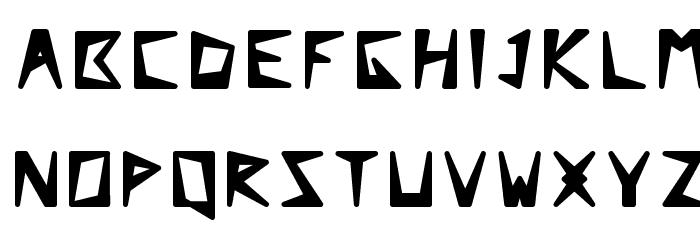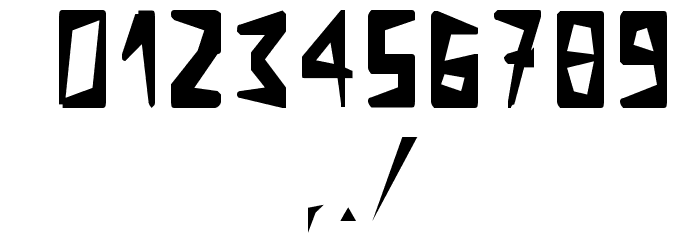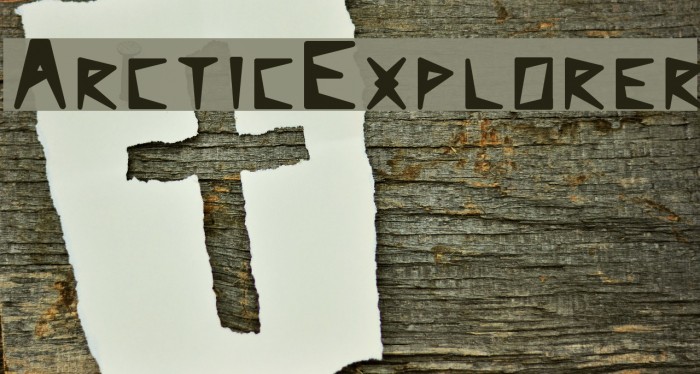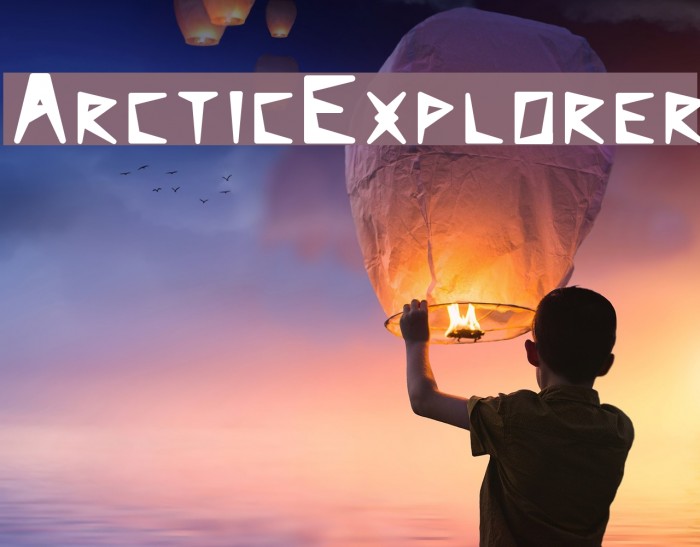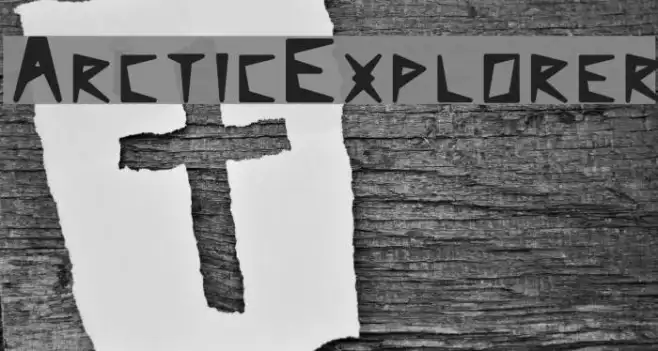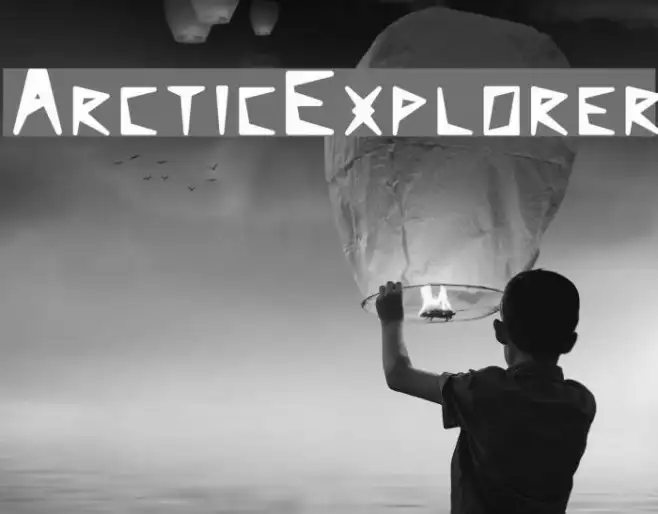
ArcticExplorer Font
This font features a bold and angular design, reminiscent of icy landscapes and rugged terrains. The characters are sharply defined with a geometric style, creating a sense of movement and energy. The uppercase and lowercase letters maintain a consistent angular theme, while the numerals and special characters follow suit with a similarly bold and dynamic appearance. The overall aesthetic is both modern and adventurous, making it ideal for projects that require a strong visual impact.
A bold, angular font with a geometric and adventurous style.
- Proposed Projects: Ideal for outdoor adventure branding, winter sports promotions, and dynamic poster designs.
- Overall Style: Modern, Adventurous